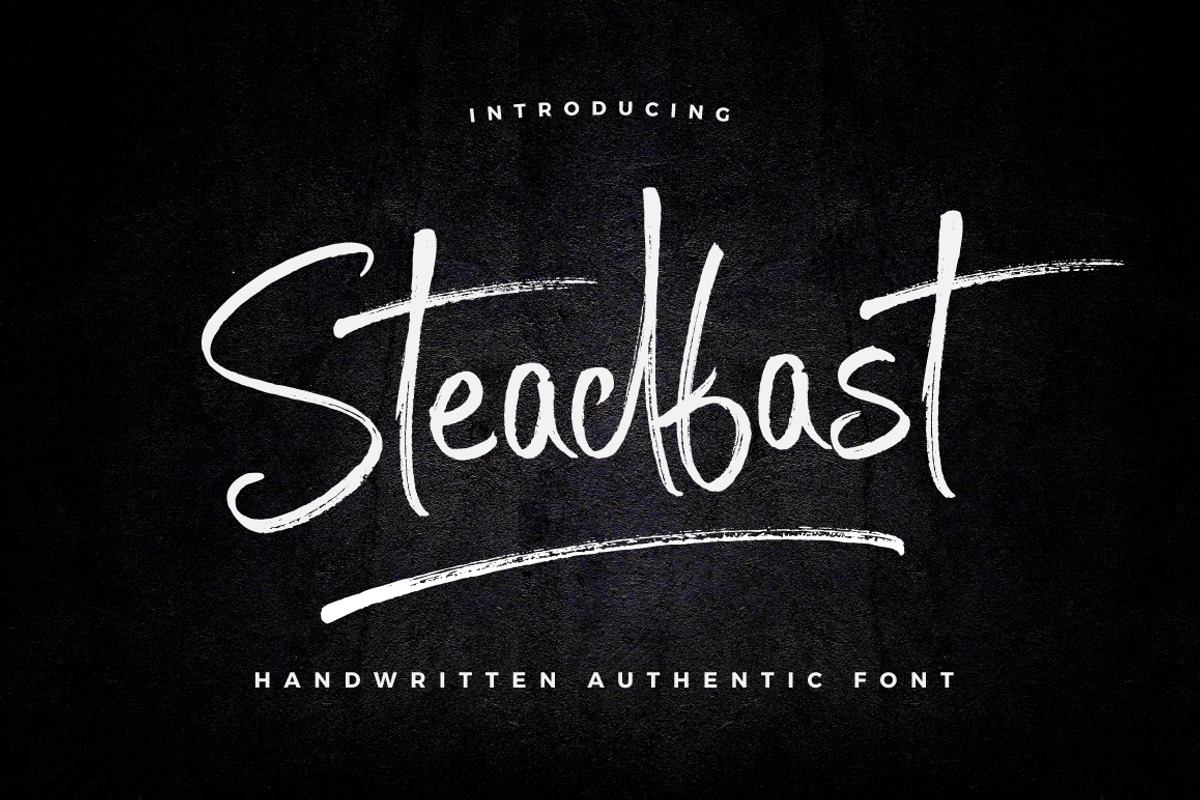
Steadfast Script Font Free Download is a beautifully crafted handwritten script typeface that exudes elegance and sophistication. With its smooth, flowing strokes and natural letterforms, this font is perfect for logos, branding, invitations, wedding stationery, and any project that requires a refined and personal touch.
The stylish and bold curves of Steadfast Script Font Free Download add warmth and character, making it suitable for both modern and vintage designs. Whether you're working on an upscale brand or creating heartfelt invitations, this font provides a versatile, high-quality option for a variety of creative projects.
Add an elegant, handwritten flair to your designs with Steadfast Script Font Free Download—perfect for designers seeking a script font that balances both style and readability with sophistication.